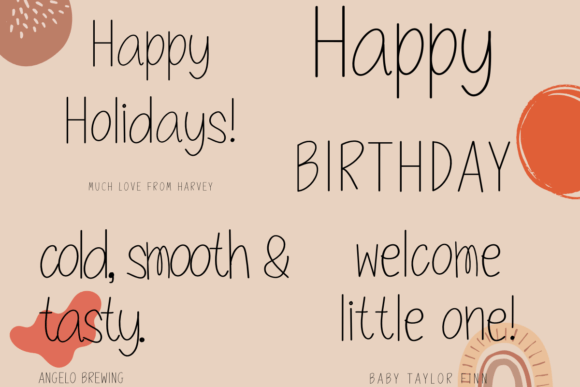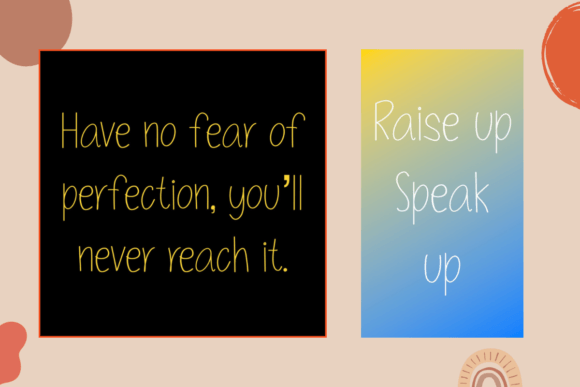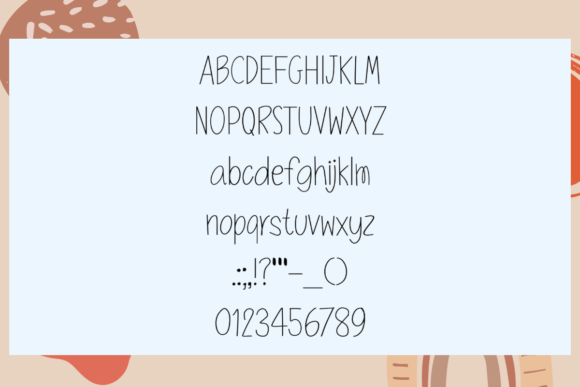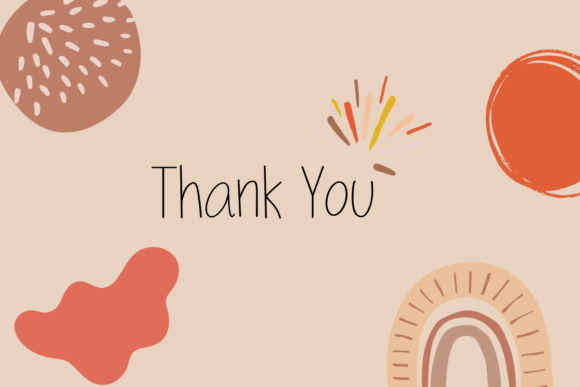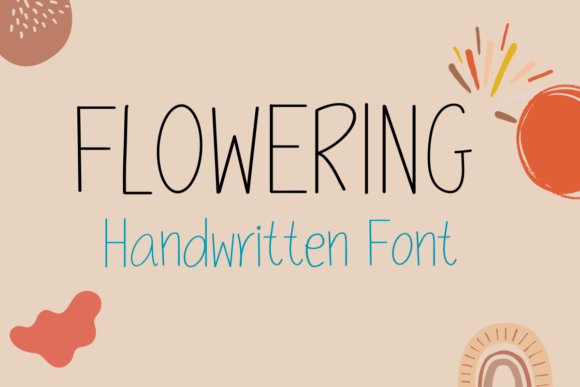
Introducing Flowering Font: The Sweet and Friendly Handwritten Display Font
Are you looking for a font that can add a touch of sweetness and friendliness to your designs? Look no further than Flowering Font, a beautiful handwritten display font that is perfect for a variety of creative projects. In this article, we’ll take a closer look at the features and benefits of Flowering Font, and explore how it can be used to enhance your crafts, digital designs, and more.
What is Flowering Font?
Flowering Font is a sweet and friendly handwritten display font that is designed to bring a touch of fun and playfulness to your designs. With its cute and charming lettering style, this font is ideal for use in a variety of creative projects, from crafts and digital designs to presentations and wedding invitations.
Key Features of Flowering Font
- Cute and Fun Design: Flowering Font features a unique and charming lettering style that is sure to add a touch of fun and playfulness to your designs.
- Handwritten Display Font: This font is designed to mimic the look and feel of handwritten lettering, making it perfect for use in creative projects where a personal touch is desired.
- Versatile and Flexible: Flowering Font can be used in a variety of creative projects, from crafts and digital designs to presentations and wedding invitations.
- Easy to Read: Despite its playful design, Flowering Font is easy to read and understand, making it perfect for use in projects where clarity is important.
Uses for Flowering Font
Flowering Font is a versatile font that can be used in a variety of creative projects, including:
- Crafts: Use Flowering Font to add a personal touch to your crafts, such as scrapbooking, card making, and other paper crafts.
- Digital Designs: Add a touch of fun and playfulness to your digital designs, such as social media graphics, blog posts, and website headers.
- Presentations: Use Flowering Font to add a touch of personality to your presentations, making them more engaging and memorable.
- Wedding Invitations: Add a touch of romance and whimsy to your wedding invitations and other stationery with Flowering Font.
- Comics and Games: Use Flowering Font to create comic book-style text and game titles that are sure to stand out.
- T-Shirts and Apparel: Add a touch of fun and personality to your t-shirts and other apparel with Flowering Font.
- Posters and Movie Titles: Use Flowering Font to create eye-catching posters and movie titles that are sure to grab attention.
Why Choose Flowering Font?
There are many reasons why Flowering Font is a great choice for your creative projects. Here are just a few:
- Unique and Eye-Catching Design: Flowering Font features a unique and eye-catching design that is sure to stand out in any project.
- Support for Multiple Languages: This font supports multiple languages, making it a great choice for designers and crafters who work with clients from around the world.
Tips for Using Flowering Font
Here are a few tips for using Flowering Font in your creative projects:
- Use it Sparingly: While Flowering Font is a beautiful font, it can be overwhelming if used too much. Use it sparingly to add a touch of fun and personality to your designs.
- Pair it with Other Fonts: Flowering Font pairs well with other fonts, so don’t be afraid to experiment with different font combinations.
- Experiment with Colors: This font looks great in a variety of colors, so don’t be afraid to experiment with different color schemes.
Flowering Font is a sweet and friendly handwritten display font that is perfect for a variety of creative projects. With its cute and fun design, this font is sure to add a touch of personality and whimsy to your crafts, digital designs, and more. Whether you’re a designer, crafter, or teacher, Flowering Font is a great choice for anyone looking to add a touch of fun and playfulness to their designs.